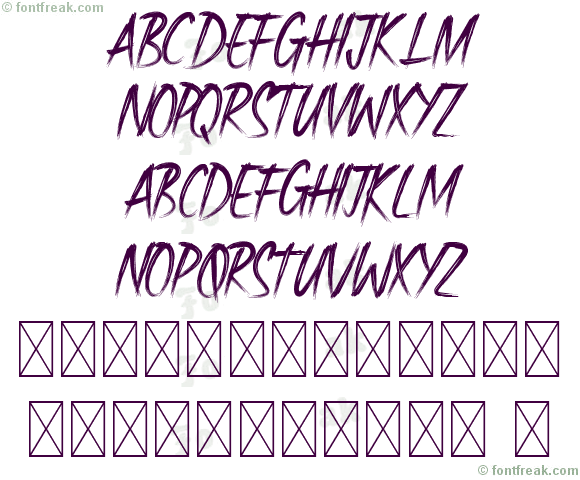
Hareback Demo
About Hareback Demo
Hareback Demo is a striking display font crafted by Noah Type, showcasing a unique, hand-drawn aesthetic that captures attention. This font falls into the decorative category, characterized by its expressive strokes and artistic flair. The letterforms exhibit a dynamic stroke weight that varies throughout, creating an energetic feel that is both playful and bold. The contrast of thin and thick lines adds depth, while the slightly irregular spacing enhances its handcrafted quality, making it perfect for projects that require a personal touch.
This font is particularly well-suited for a variety of creative applications. It excels in wedding invitations, where its whimsical design can convey romance and elegance. Additionally, Hareback Demo is an excellent choice for movie posters, allowing filmmakers to express their film's unique personality through visually striking typography. Restaurant menus can benefit from this font’s distinctive style, enhancing the overall dining experience and enticing patrons with its artistic flair. Furthermore, small business owners looking to create memorable branding materials will find this font a valuable asset in their design toolkit.
The target audience for Hareback Demo includes graphic designers, content creators, and small business owners who seek to elevate their projects with distinctive typography. Its free availability encourages experimentation, making it accessible for anyone looking to enhance their design work.
What sets the Hareback Demo font apart is its ability to blend artistic expression with functionality. This font stands out not only for its unique visual appeal but also for its versatility in various design contexts. With the Hareback Demo font free download, users can easily incorporate this captivating typeface into their projects, adding an unmistakable charm that is sure to leave a lasting impression.